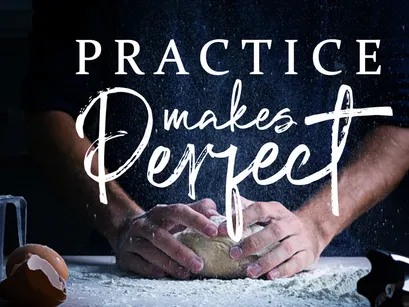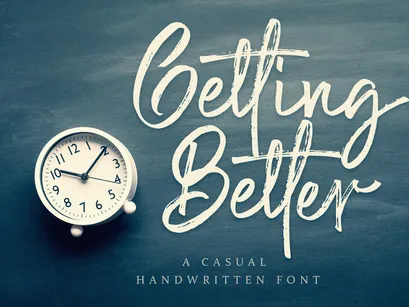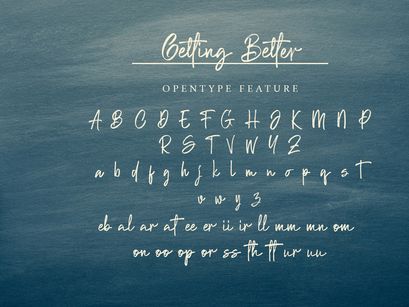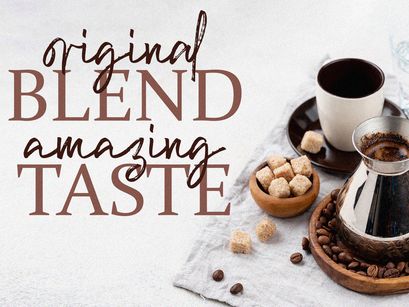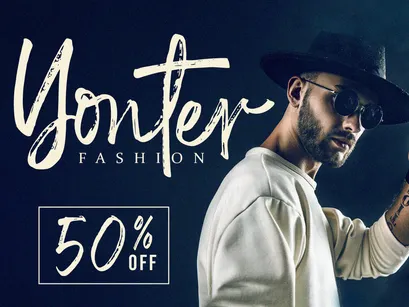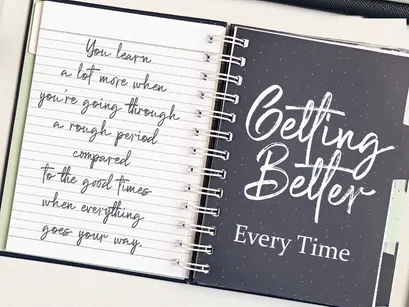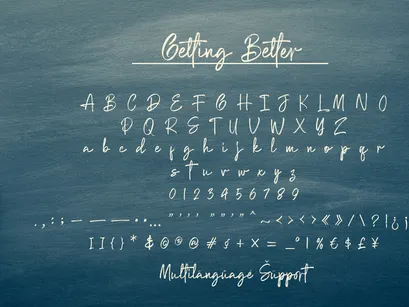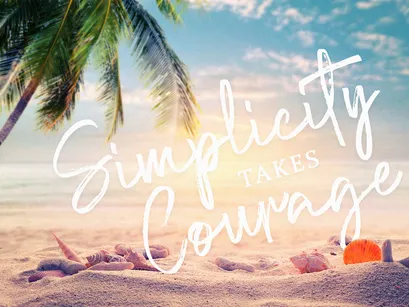
Getting Better - Handwritten Font
Getting Better
Getting Better is a stunning handwritten script font with authentic and casual feels. It will be perfectly used for Branding, Logo Design, Lettering, Logotype, Clothing, Poster, magazine, packaging, posters, shopping bags, t-shirts, book covers, photography, special events and other design project.